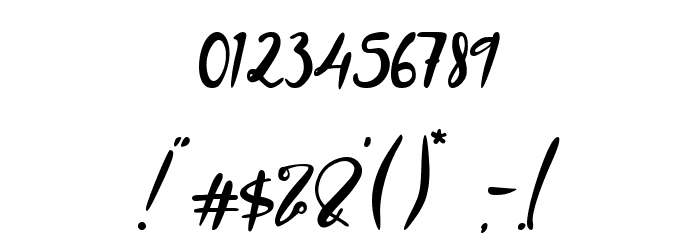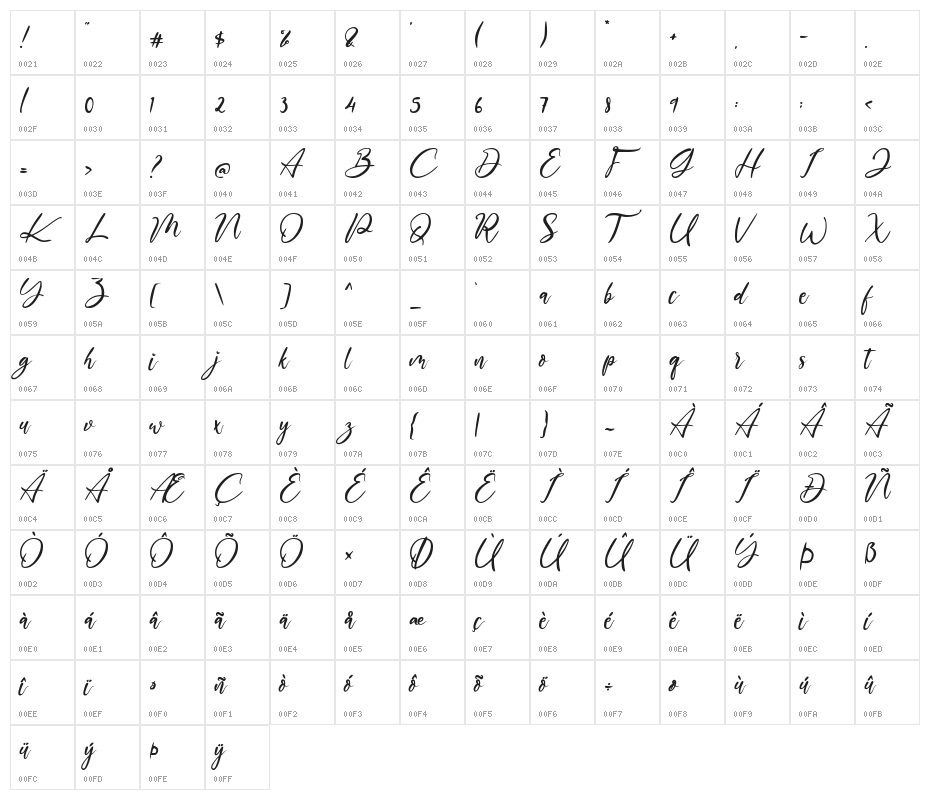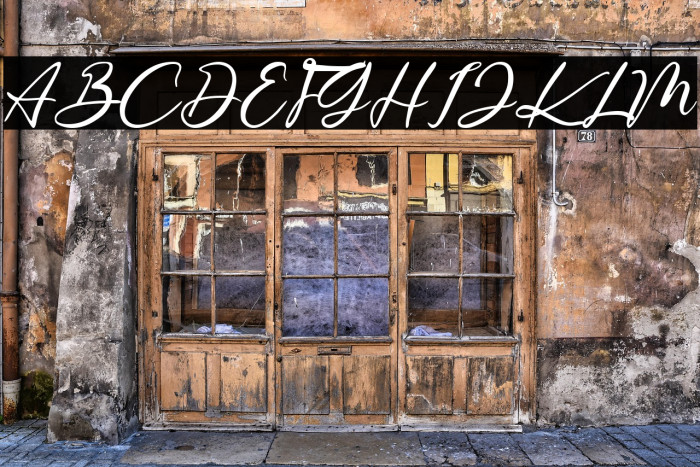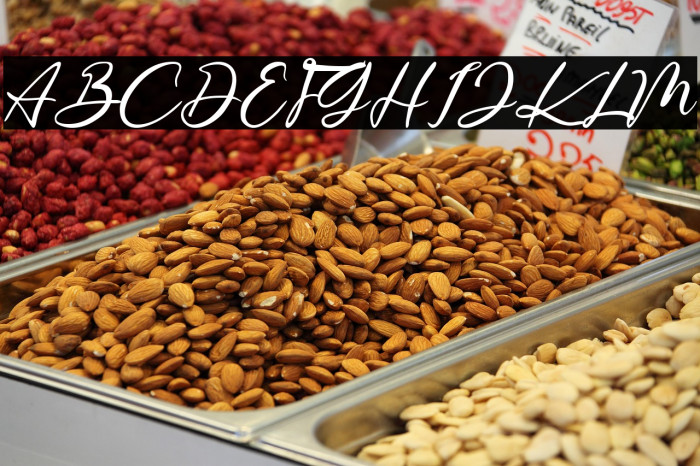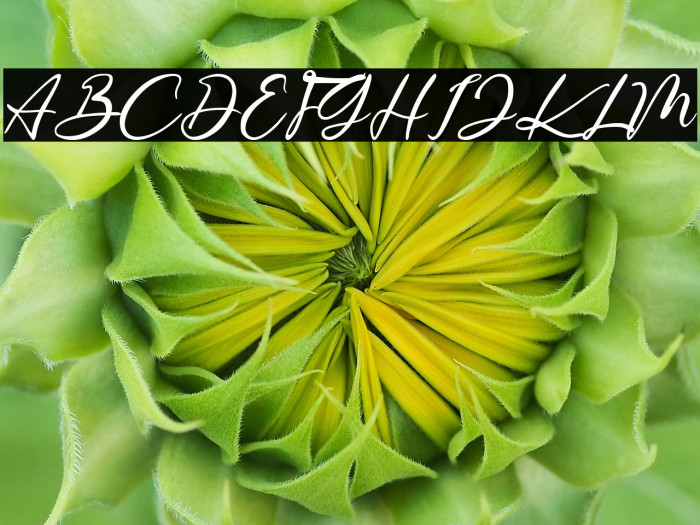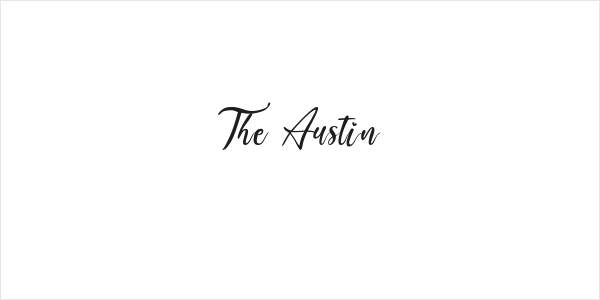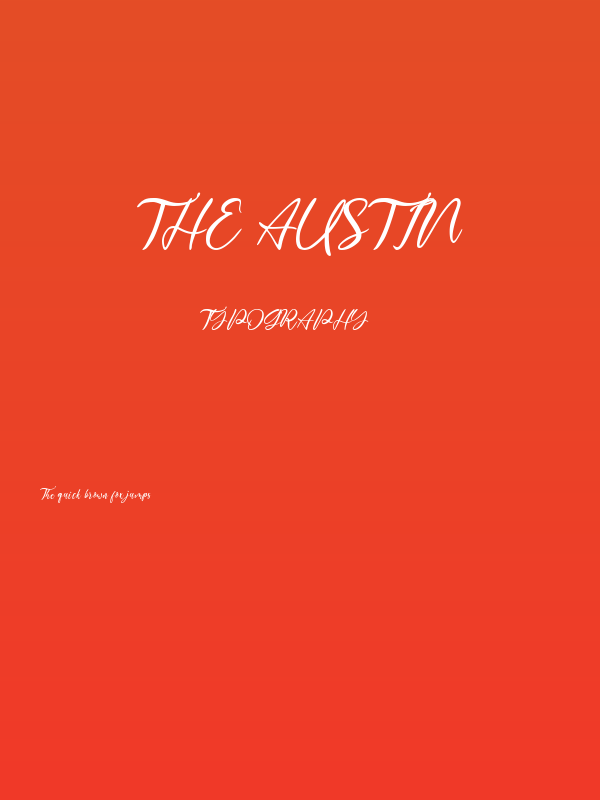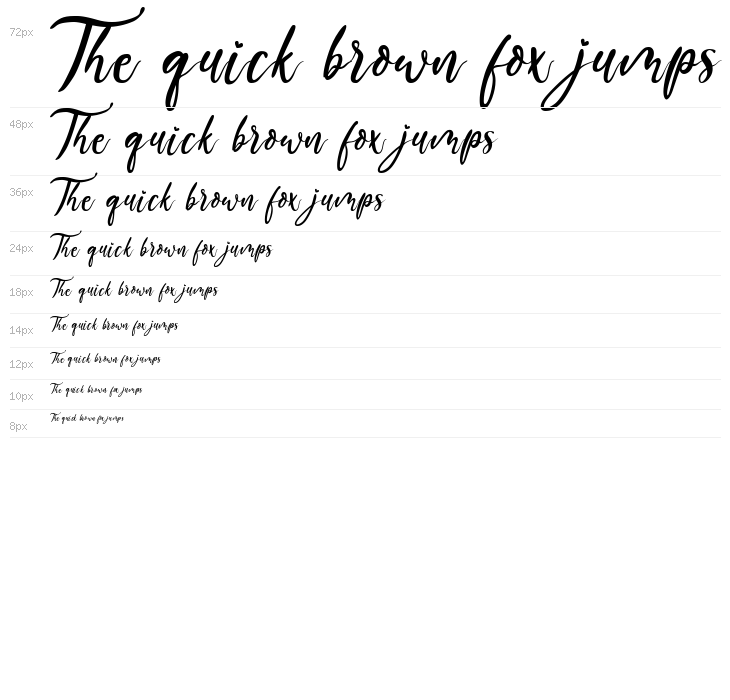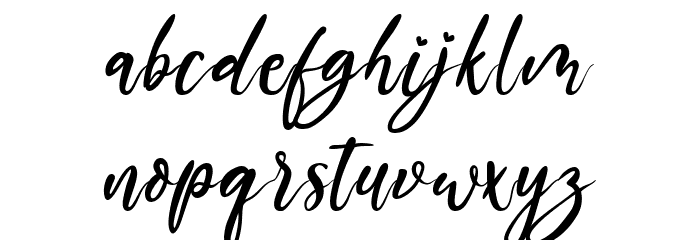
The Austin Font
The Austin Description
This font showcases a fluid and elegant script style, characterized by its smooth, flowing lines and cursive nature. The uppercase letters exhibit a graceful loop and swirl, giving a sense of movement and sophistication. The lowercase letters maintain a consistent style, with some characters featuring unique flourishes that add to the overall charm. The numerals are clear and maintain the script style, ensuring readability while preserving the aesthetic. Special characters are creatively integrated, maintaining the font's cohesive look. This font exudes a sense of elegance and is perfect for projects that require a touch of class and personality.